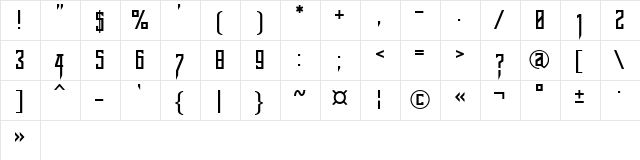
NOCNA PATROLA Regular
| Foundry | Nikola Kovanovic |
| Designer | Nikola Kovanovic |
Design Context for NOCNA PATROLA Typeface
NOCNA PATROLA takes a measured approach to typography — its balanced proportions and neutral character make it a reliable workhorse for both digital and print work.